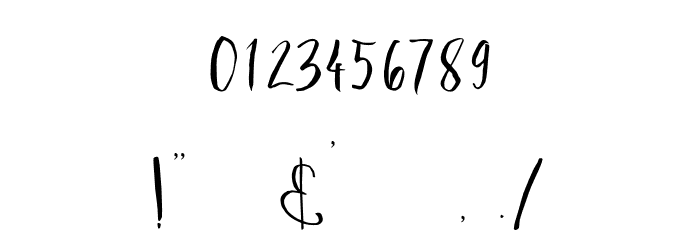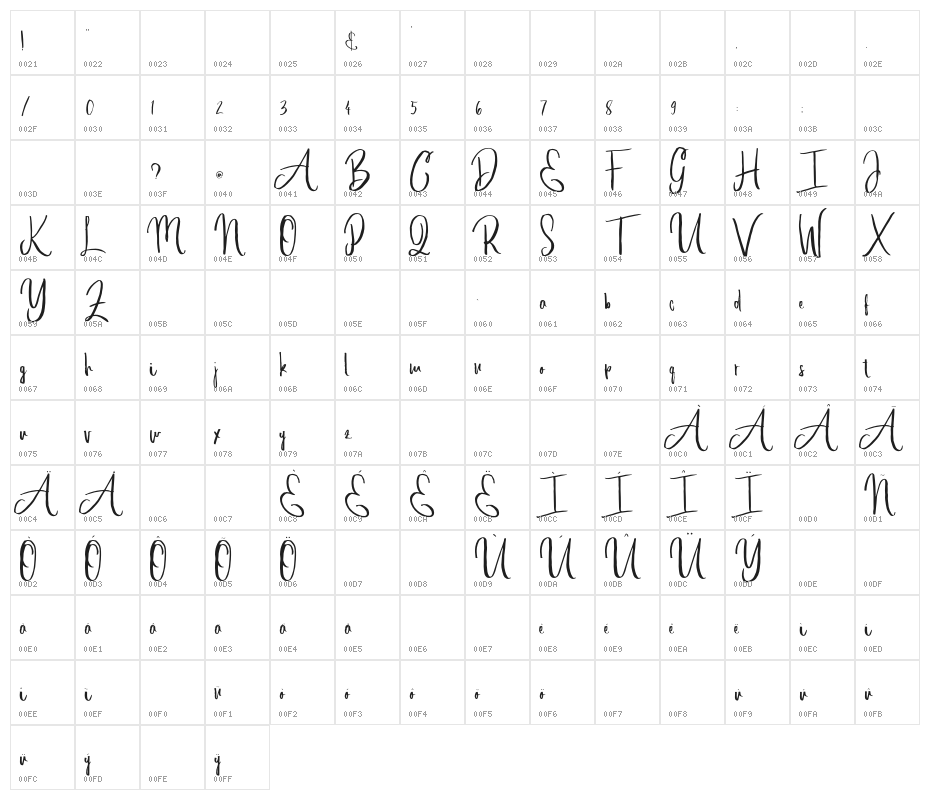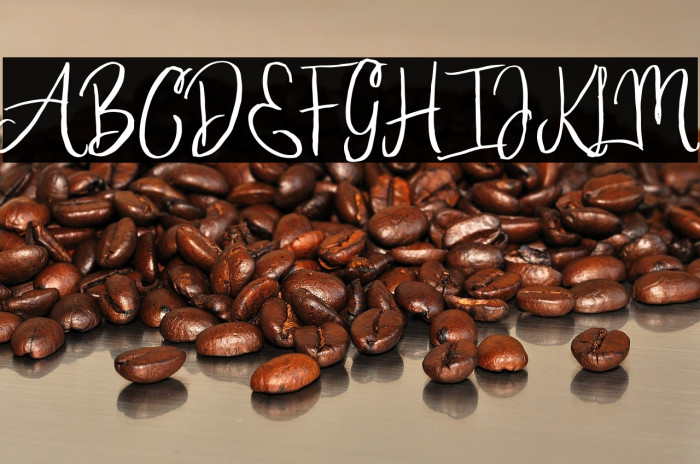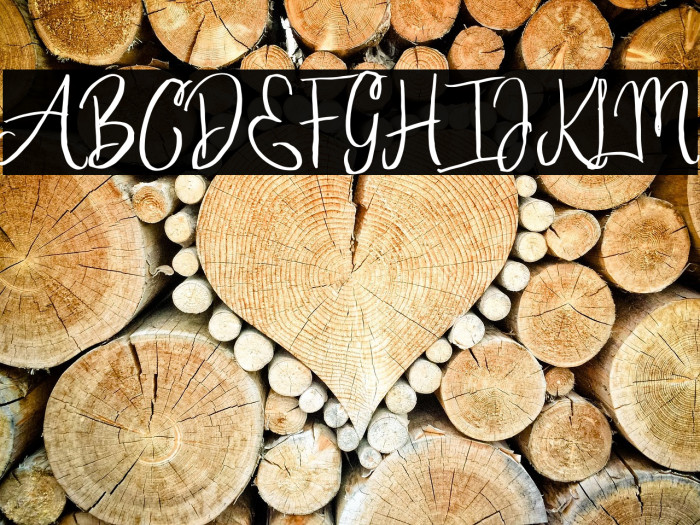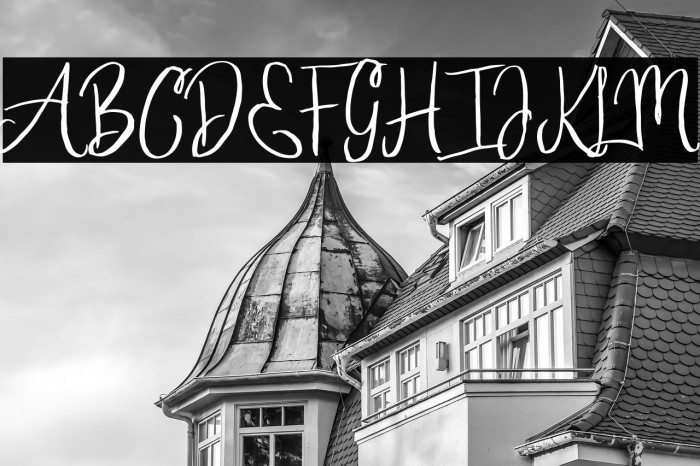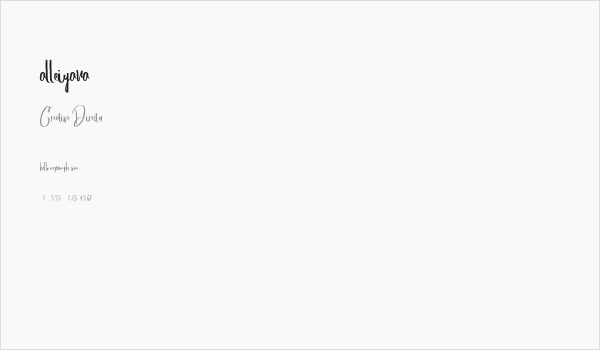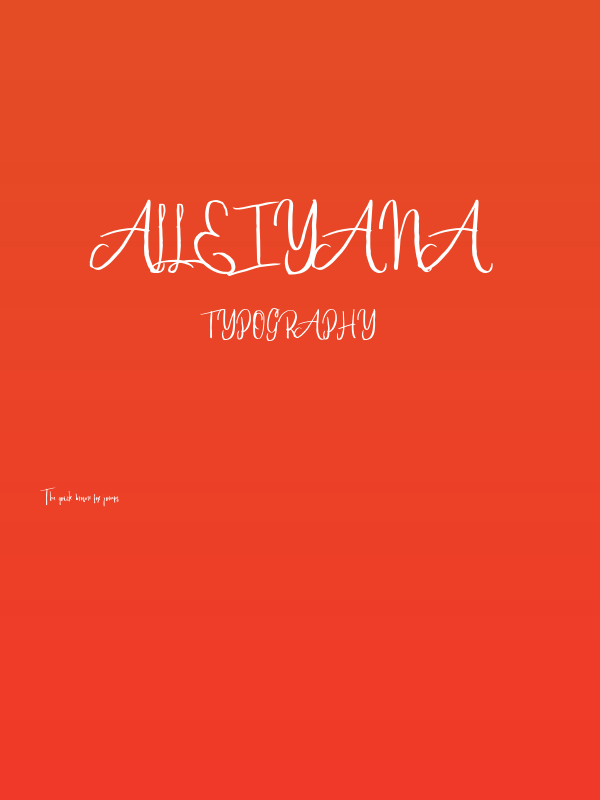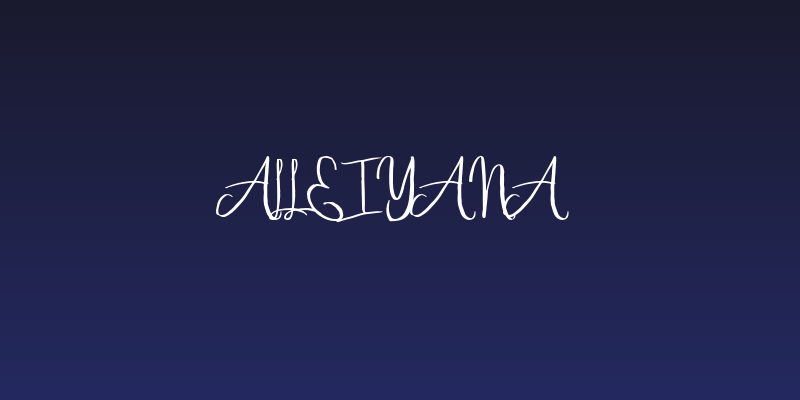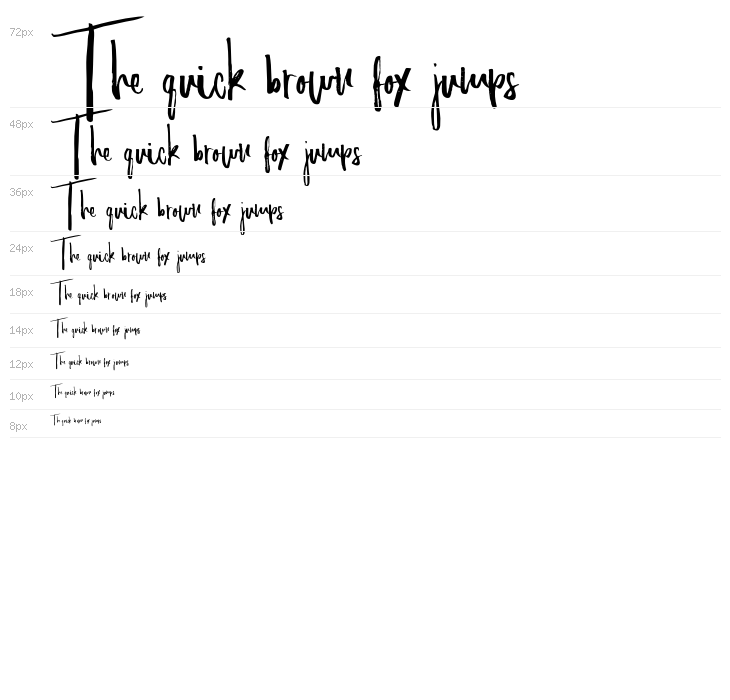
alleiyana Font
alleiyana Description
This font features a dynamic and expressive handwritten style, characterized by its fluid and flowing letterforms. The uppercase letters exhibit a playful yet elegant appearance, with varying stroke widths that add a sense of movement and energy. The lowercase letters maintain this lively aesthetic, offering a cohesive look throughout the text. Numbers and special characters are crafted with the same attention to detail, ensuring versatility in various design contexts. The overall impression is one of creativity and spontaneity, making it ideal for projects that require a personal touch.
| Use Case | Logos, Headlines, Creative projects |
| Proposed Projects | Ideal for greeting cards, invitations, personal branding, and creative posters. |